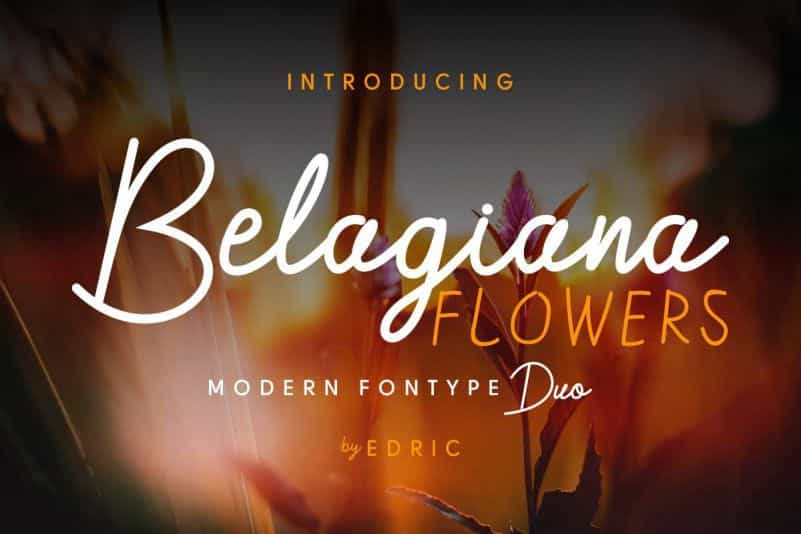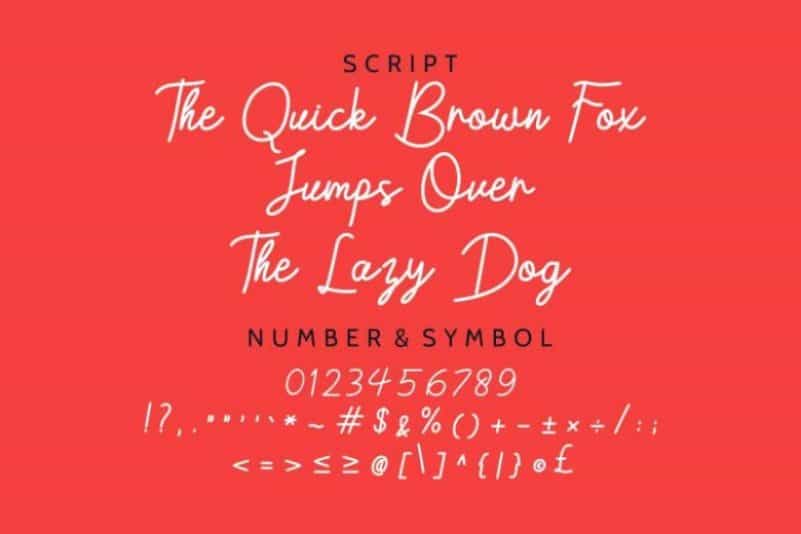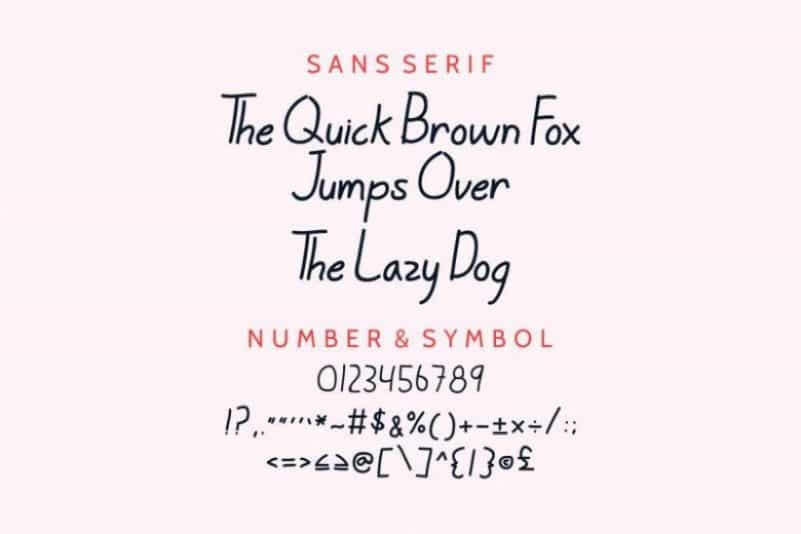
Belagiana Flowers is a new font duo of script and sans look display. It display lovely characters set, unusual ligatures and excellent pairing. It also support multiple accents Perfect for many industries and projects : Personal branding, magazine, flyer, wedding, corporate, person name, signature, modern, law firm, makeup artist, photography, travel, hotel, fashion, cafe, cake-food menu etc.